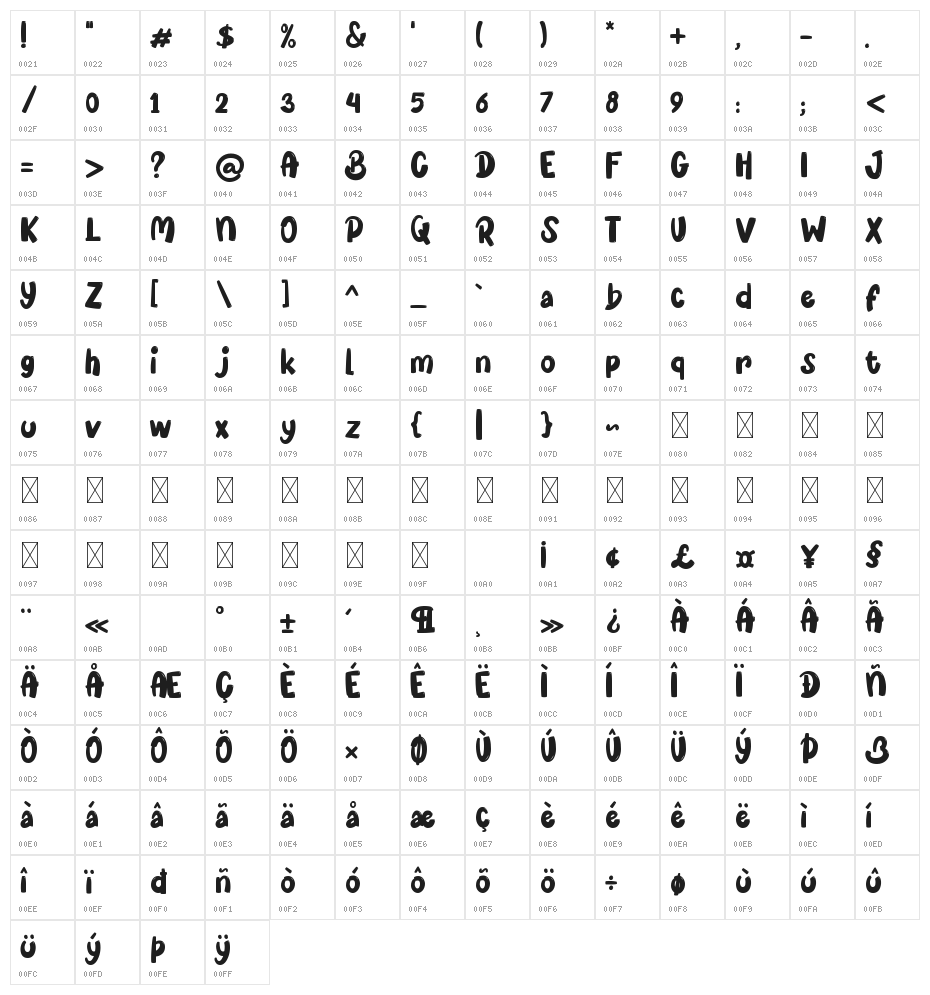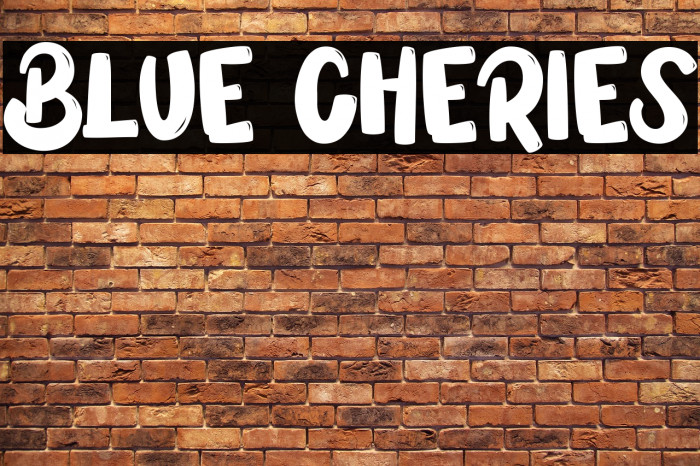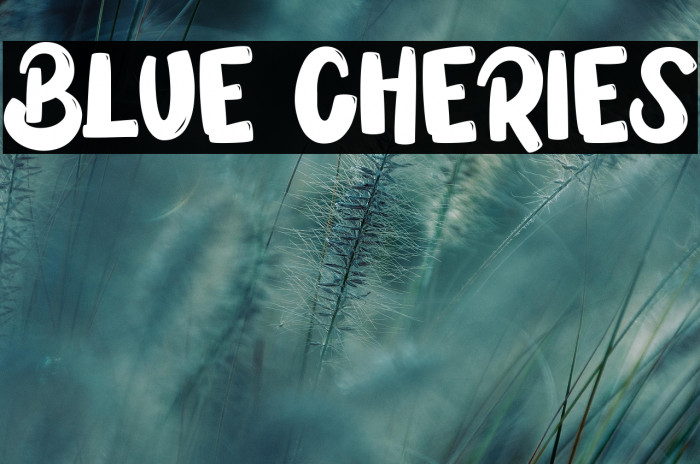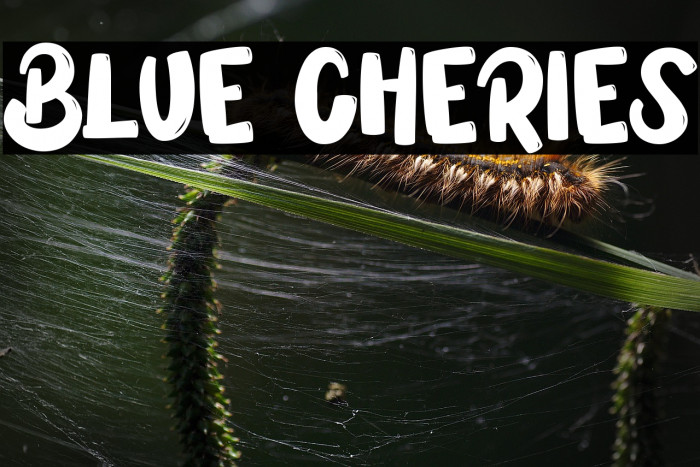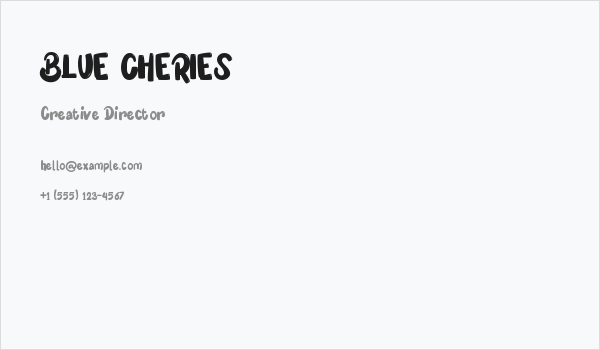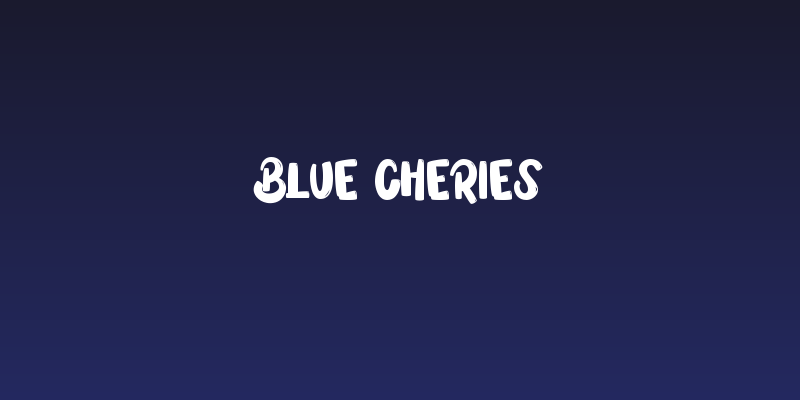
BLUE CHERIES Font
BLUE CHERIES Description
This playful and bold font features a handwritten style with thick, rounded strokes that give it a friendly and approachable appearance. The characters are slightly irregular, adding a whimsical touch that enhances its charm. The uppercase and lowercase letters maintain a consistent weight, creating a harmonious look across the alphabet. The numbers and special characters follow the same design principles, ensuring a cohesive feel throughout. This font's unique personality makes it ideal for projects that require a fun and informal tone.
| Proposed Projects | Ideal for children's books, playful branding, greeting cards, and creative posters. |